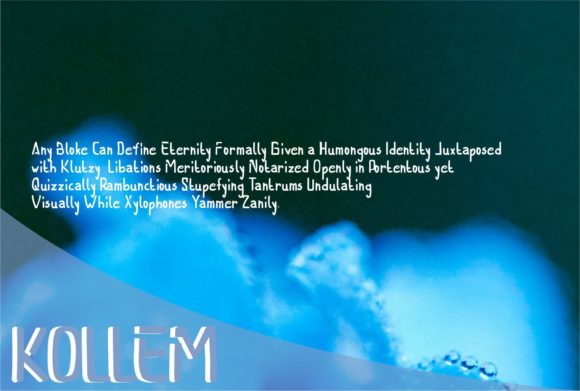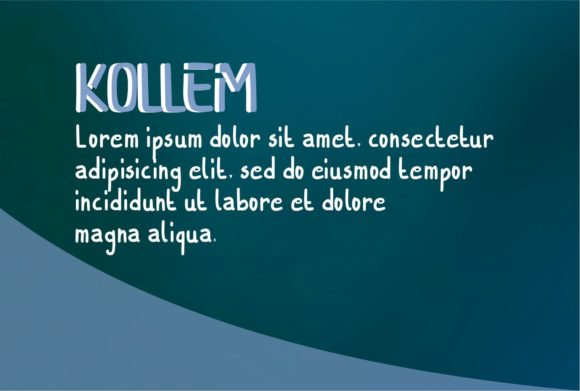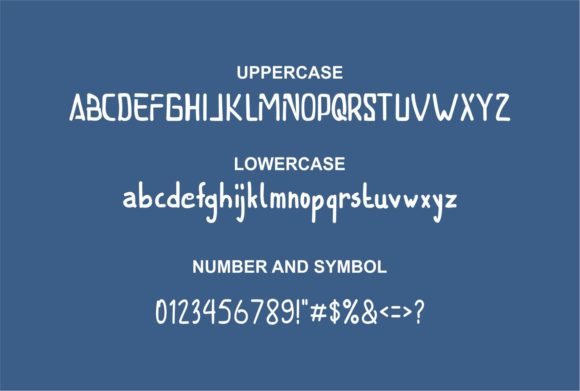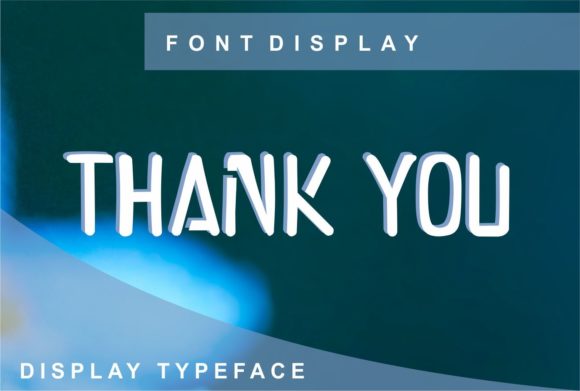
Introduction to Kollem Font
Have you ever found yourself stuck in a creative rut, struggling to find the perfect font to bring your project to life? I know I have. It’s that moment when you’re pouring your heart and soul into a design, and the right font is the missing piece that makes everything click. For me, that moment came when I stumbled upon the Kollem Font – a clean and adaptable display font that has become an indispensable asset in my design library.
The beauty of Kollem Font lies in its versatility. Whether you’re working on a high-quality design for a brand, or a free download for a personal project, this font has the potential to elevate your creation. With its transparent background and sleek design, Kollem Font is the perfect design resource for any creative project. Its value lies not only in its aesthetic appeal but also in the flexibility it offers designers, allowing them to experiment and push the boundaries of their imagination.
Key Features of Kollem Font
- High-quality design resource with a unique and creative style, perfect for various projects.
- Transparent background, allowing for easy integration into any design project.
- Optimized for use at high resolutions, ideal for print and digital applications.
- Supports a wide range of languages, making it a versatile design resource.
- Designed with a focus on creativity, making it an excellent choice for artistic and innovative projects.
Honest Review: Kollem Font
As a designer, I’m always on the lookout for high-quality design resources that can elevate my creative projects. The Kollem Font is one such find that caught my attention. It’s a free download, which is a big plus in my book.
What works well with the Kollem Font is its versatility. It comes in a variety of styles and weights, making it suitable for a range of design applications. ✨ The font is also well-designed, with clean lines and a professional aesthetic that makes it easy to read.
The Kollem Font is a great choice for designers who need a font with a transparent background. It’s also a great option for those who want a free, high-quality font that won’t break the bank.
Here are some of the key features of the Kollem Font:
- Versatile and suitable for a range of design applications
While the Kollem Font is a great addition to any designer’s toolkit, it’s not without its limitations. ⚠️ One of the main issues I had with the font is that it’s not as extensive as some of the other fonts on the market. The character set is limited, and there are no bold or italic versions available.
Overall, I’d say the Kollem Font is a solid choice for designers who need a high-quality, free font with a transparent background. It’s not perfect, but it’s a great starting point for any creative project.
For getting the most out of Kollem Font, experiment with different font sizes and styles to create a unique look. You can also use Kollem Font in combination with other design elements to create a visually appealing design. Common use cases for Kollem Font include creating logos, business cards, and other marketing materials.